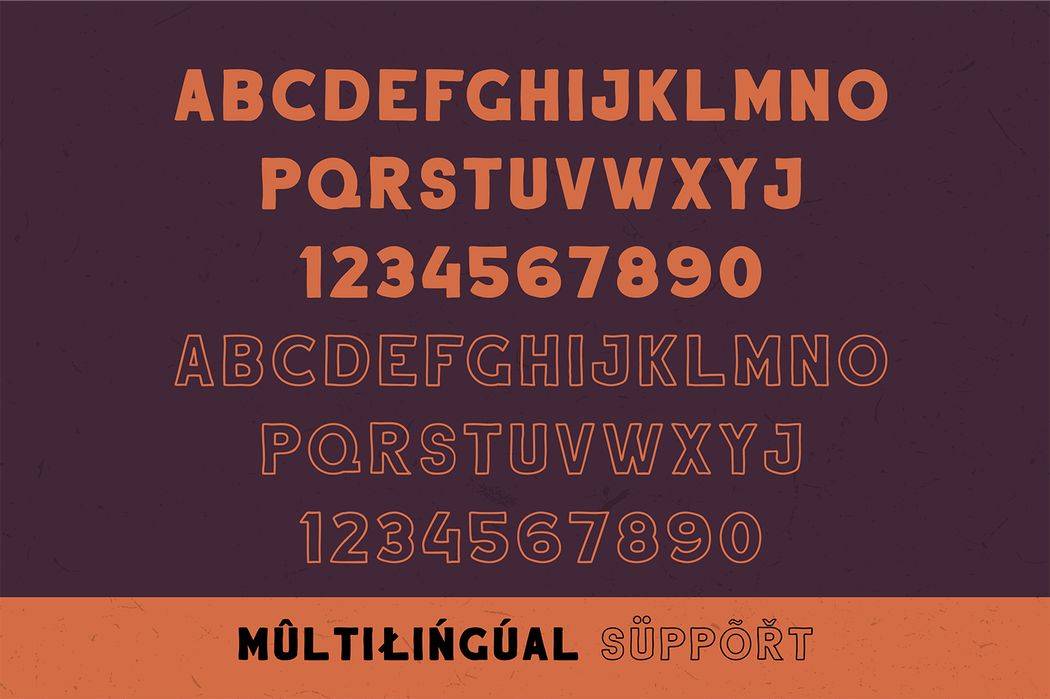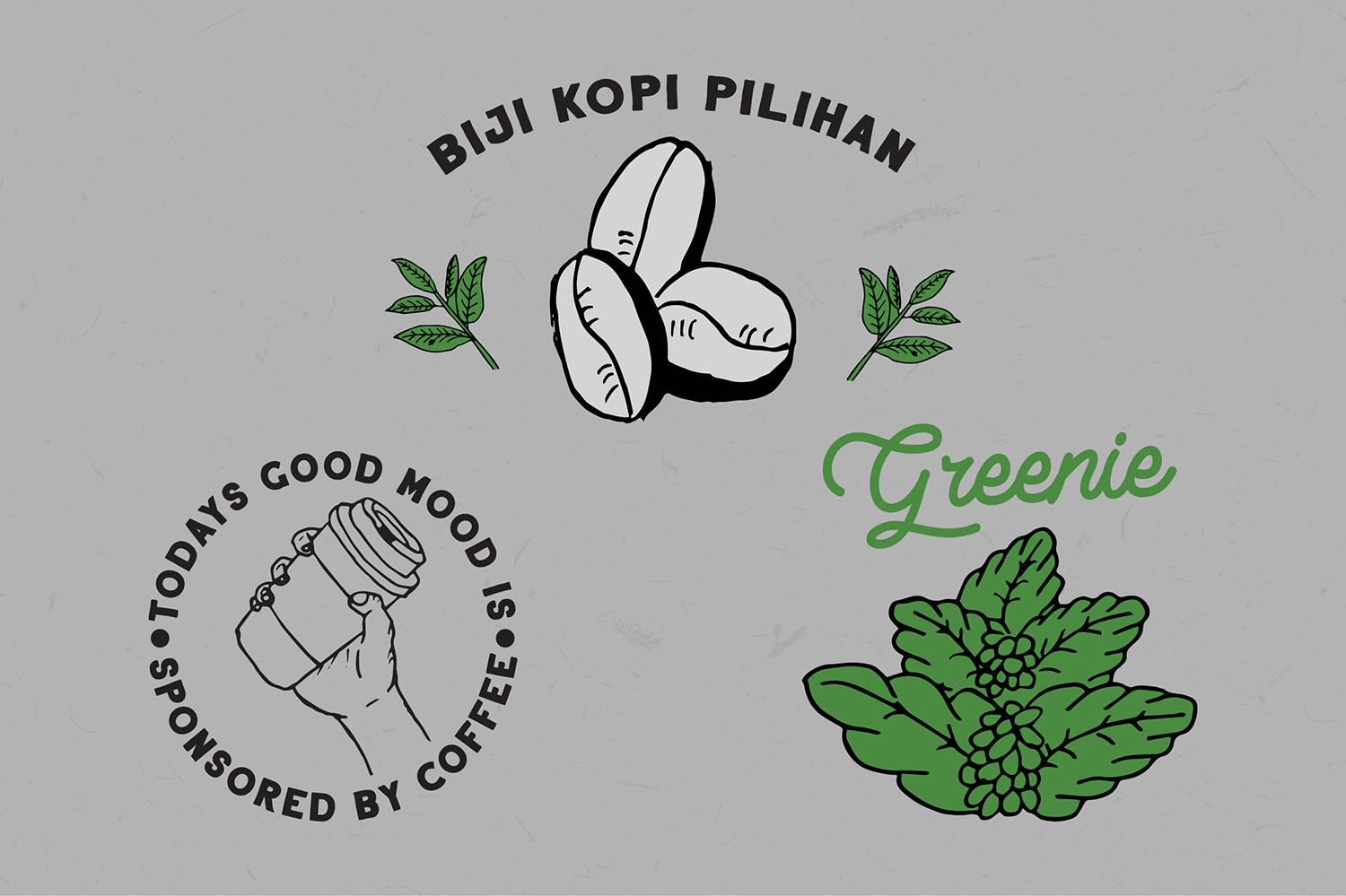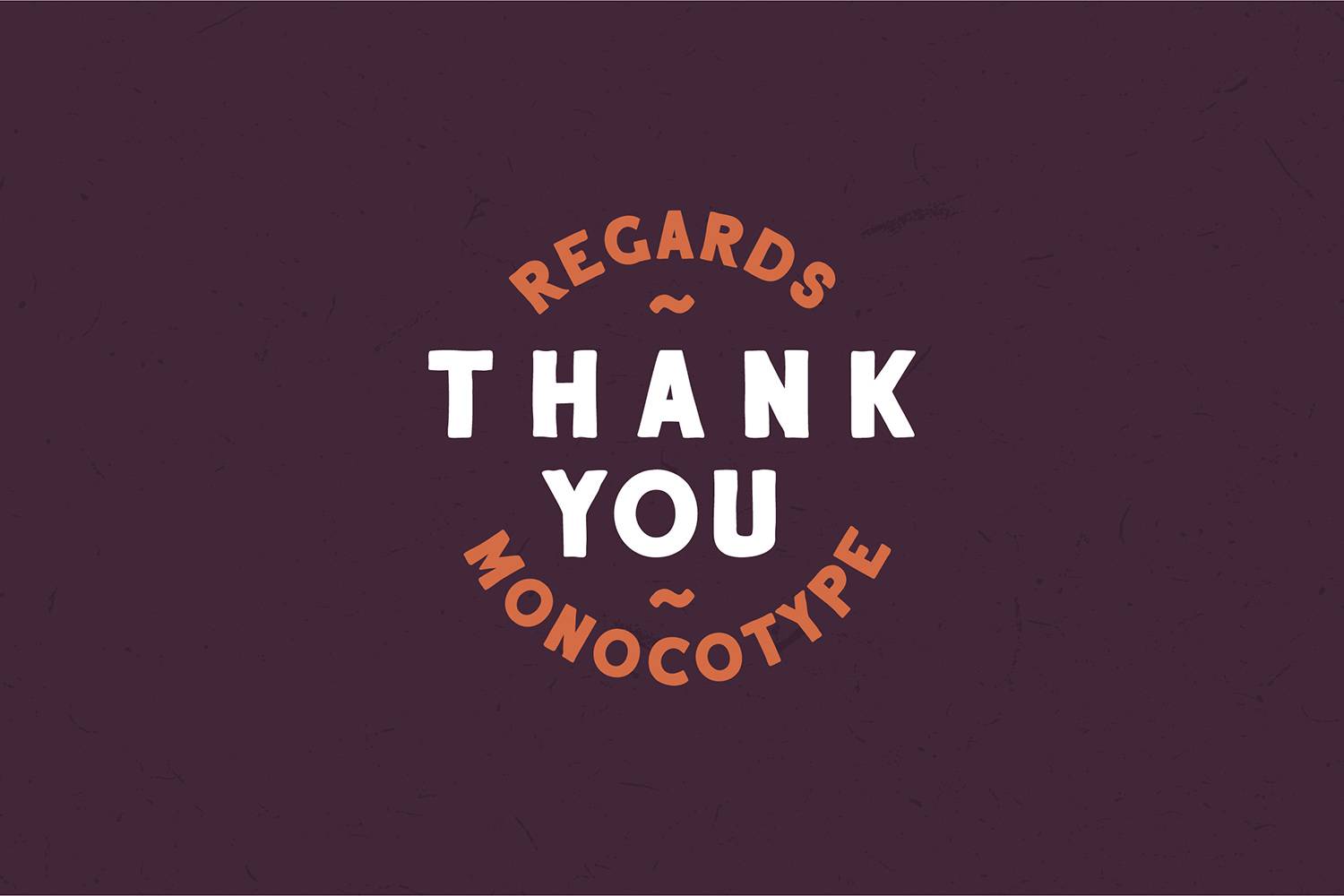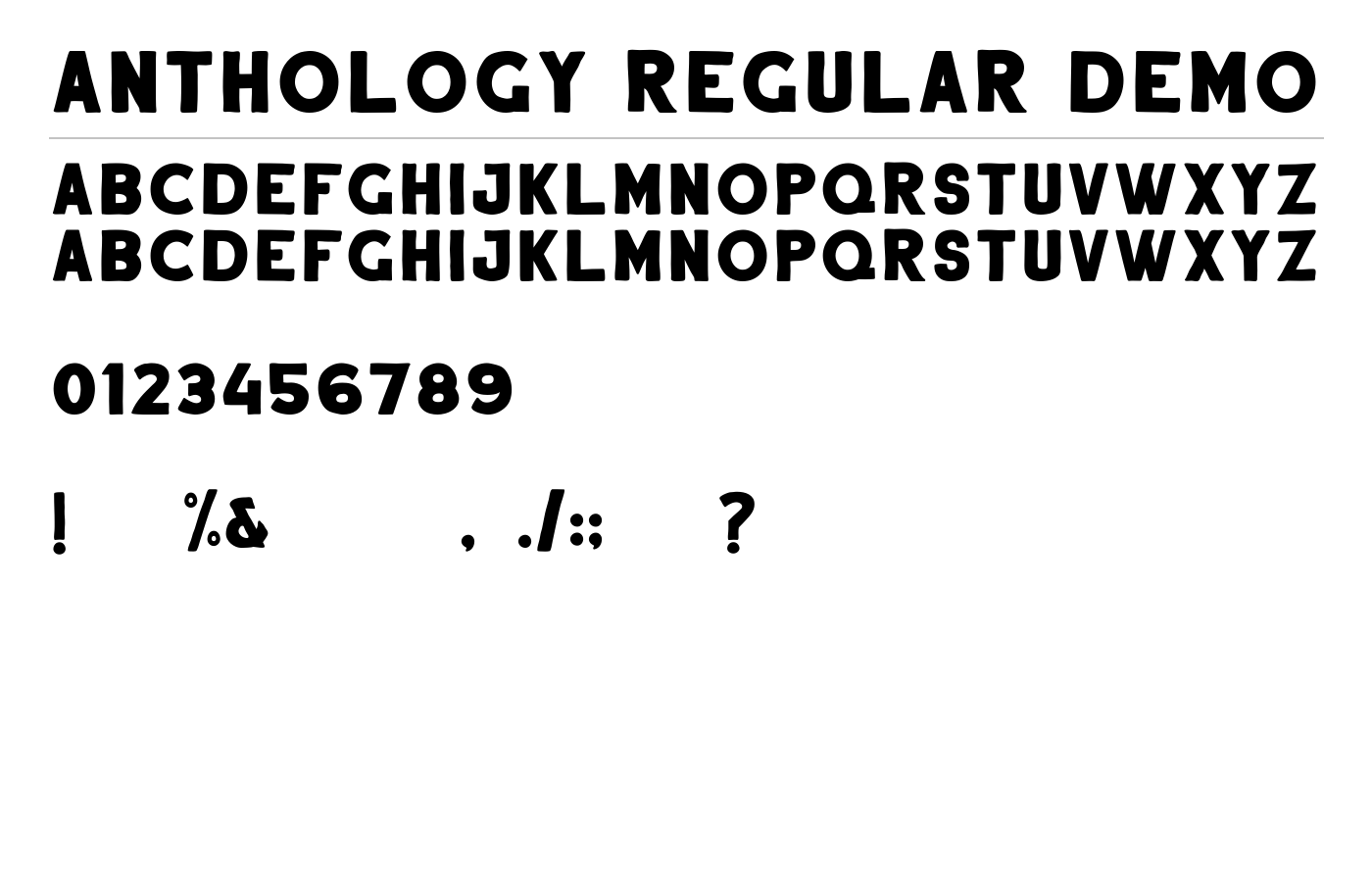
Anthology Sans is a bold and playful sans serif font with a slightly condensed width and a high x-height that makes it highly legible. Its strong, rounded shapes and quirky, irregular strokes give it a friendly, informal character, perfect for branding, headlines, and creative projects that want to convey fun and approachability. This font works well in eye-catching logos, packaging, and posters where a unique, energetic style is needed.
Anthology Sans Font
About Anthology Sans Font
| Font family | Anthology Sans Font |
| Release date | 2018-12-26 |
| Designer | Abdurrahman Hanif |